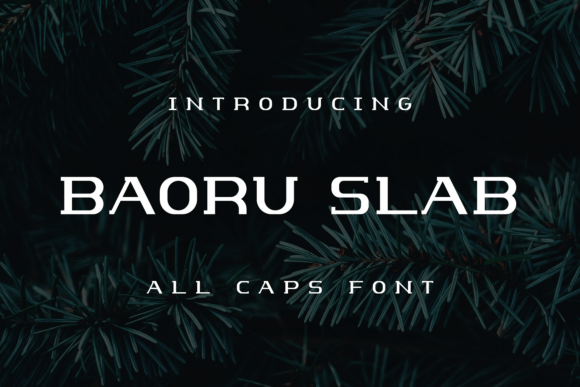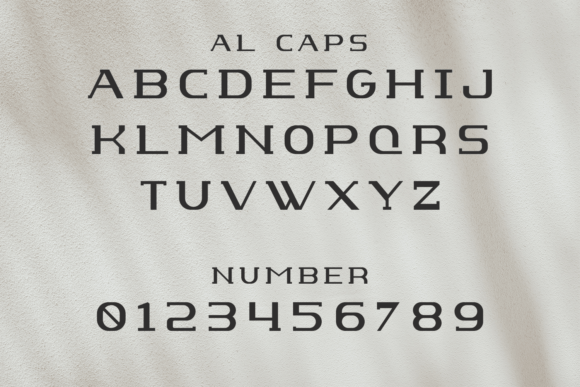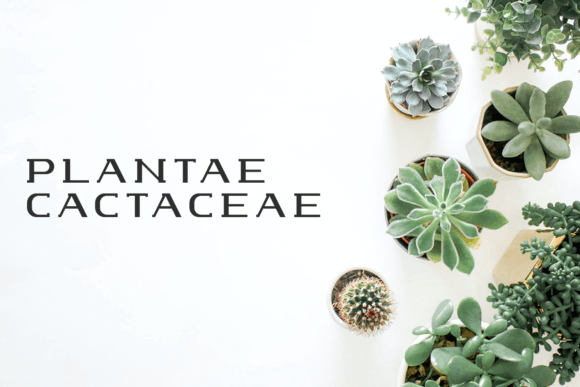
Baoru Slab
Baoru Slab: A Modern and Stylish Slab Serif Font
Baoru Slab is a modern and stylish slab serif font that offers endless creative possibilities. This versatile typeface adapts well to a wide pool of design ideas, limited only by imagination.
Key Features of Baoru Slab
• Modern Design: Offers contemporary appeal.
• Stylish Character: Brings sophisticated elements to designs.
• Versatile Application: Adapts to various creative ideas.
• Creative Freedom: Allows unlimited design possibilities.
Best Uses for Baoru Slab
Thanks to its versatile characteristics, Baoru Slab works especially well for:
When using Baoru Slab in your designs, keep these tips in mind:
• Try it for headlines or display text to showcase its modern style.
• Use different sizes to highlight its stylish features.
• Let your imagination guide creative applications.
• Experiment with various design concepts.
To sum up, Baoru Slab is an excellent choice for designers seeking a modern and stylish slab serif font. Its versatility makes it perfect for a wide range of creative projects. Whether you’re developing innovative concepts or exploring new design territories, Baoru Slab offers the perfect blend of contemporary style and creative freedom.
Furthermore, Baoru Slab’s distinctive design allows it to shine in contexts where both modernity and style are key. For instance, from creative typography to contemporary layouts, this font can elevate your projects with its unique character. Also, its modern yet versatile appearance works particularly well in designs that push creative boundaries.
In conclusion, Baoru Slab truly captures the essence of modern design in slab serif typography. Its ability to adapt to various creative ideas shows how well it can serve imaginative needs. Therefore, for those wanting to explore unlimited design possibilities, Baoru Slab can enhance any project with its distinctive style. Ultimately, it’s perfect for designers aiming to make a modern, stylish impact across creative projects.